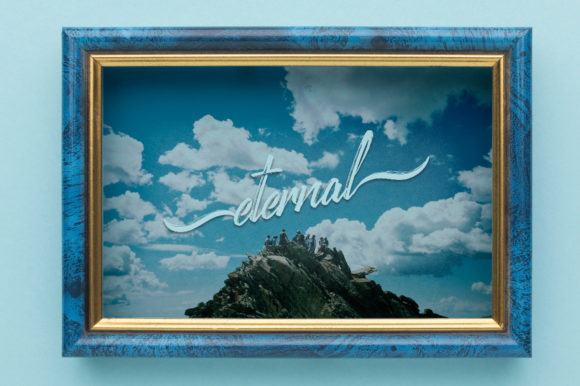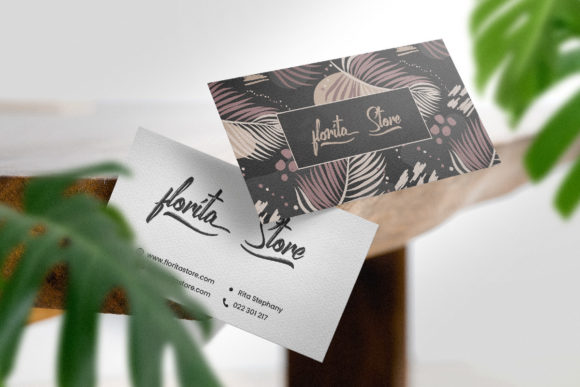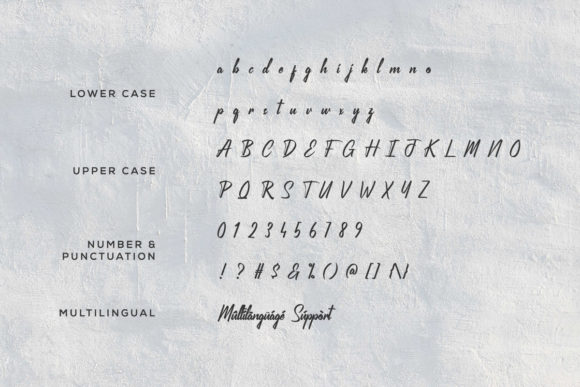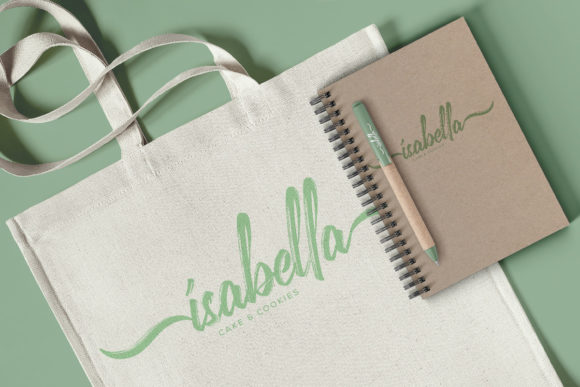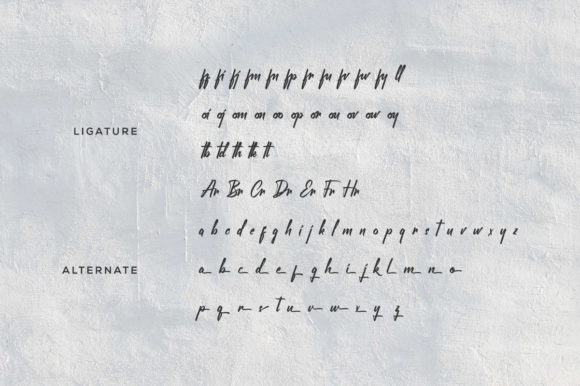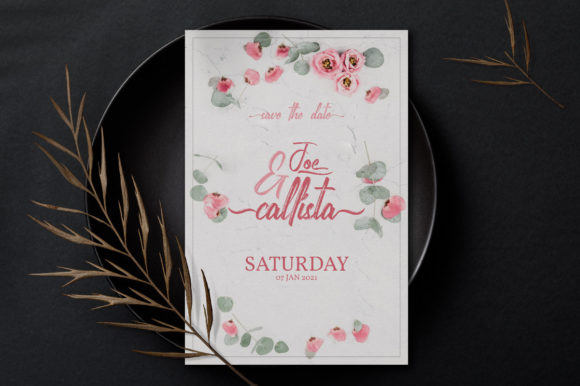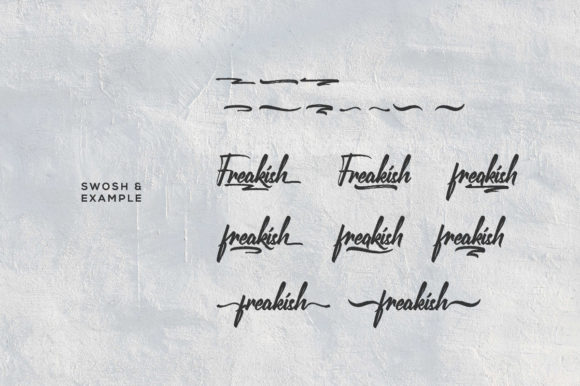
Freakish Font
About Freakish Font
Freakish is a cool, brushed and cursive handwritten font. This gentle font will look gorgeous on a variety of design ideas. Freakish is PUA encoded which means you can access all of the glyphs and swashes with ease!